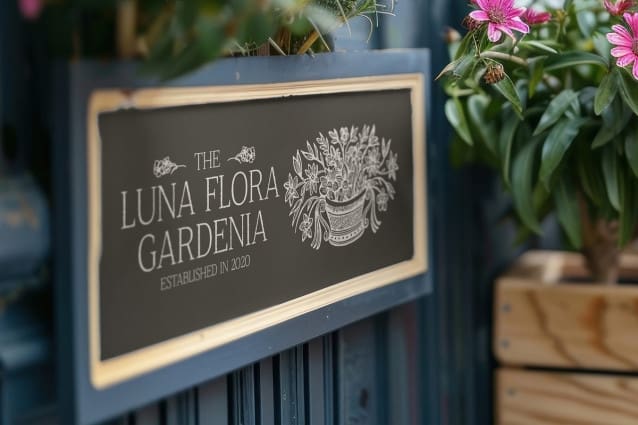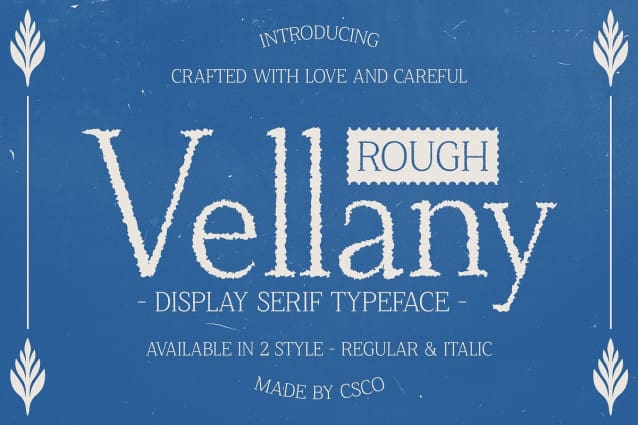
Vellany Rough Font
Vellany Rough Font is a modern serif font that pairs elegant, sleek forms with a contemporary aesthetic. Its minimalist shapes emphasize smooth lines and simple details, creating a sophisticated and streamlined look that conveys professionalism and modernity.
Rough Effect for a Distinctive Artistic Touch The rough effect introduces a coarse, uneven texture to the font, adding a unique handmade quality. This artistic touch contrasts with the clean, minimalist design, enhancing Vellany Rough’s character and giving it a rugged, distinctive edge.
Balancing Sophistication with Creative Flair By merging sleek modernity with a rugged artistic effect, Vellany Rough achieves a balance between formality and creativity. This combination results in a font that is both elegant and memorable, perfect for designs that require a touch of sophistication alongside a creative, artisanal twist.
Ideal for Branding, Packaging, and Promotional Materials Vellany Rough is ideal for a variety of applications, including branding, packaging, and promotional materials. Its blend of modern elegance and artisanal texture ensures that your designs make a sophisticated yet distinctive statement.